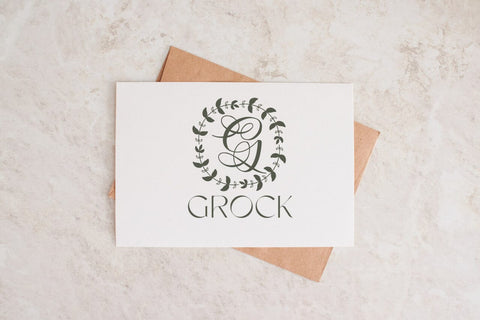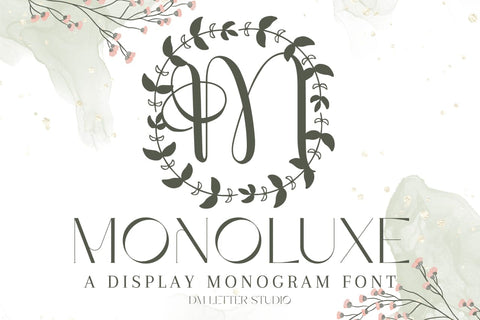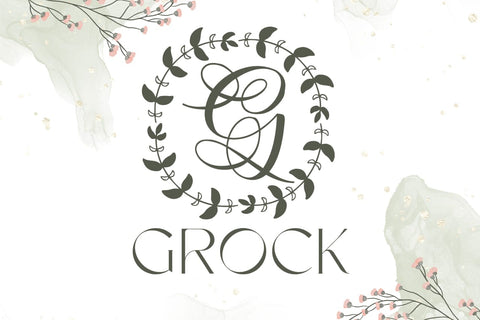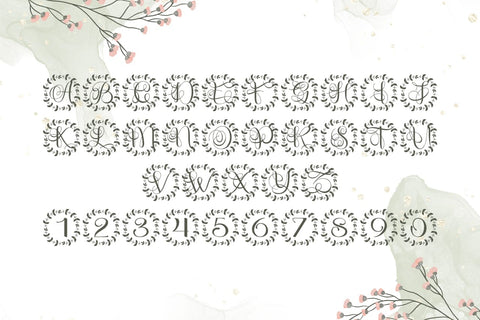
Monoluxe Monogram Font
Meet Monoluxe, the Monogram Font
Monoluxe Monogram Font turns simple initials into sleek, boutique-ready emblems. Lines are smooth and balanced, and generous counters keep tiny tags readable. Use it for wedding suites, boutique logos, keepsake gifts, foil seals, and premium packaging. Because spacing is even and forms are calm, your layouts look refined at thumbnail size and stay crisp on large prints.
Where this monogram font shines
Set single, double, or triple initials for logos, seals, menus, and place cards. Frame them with laurel rings, ovals, rope circles, or fine rules to echo the clean geometry. Since proportions favor symmetry and clarity, centered compositions come together in minutes. As a result, your listings feel consistent across invitations, signage, boxes, and tags. Monoluxe also scales smoothly from jewelry cards to entry displays, which makes it ideal for event décor and retail packaging.
Design tips for Monoluxe Monogram
Keep initials large and let white space breathe. Pair the hero mark with a soft serif for body text or a clean sans for dates and labels. Add micro shadows, a thin inner stroke, or a delicate frame to create depth. Because the structure is airy and modern, textured papers and metallic foils raise perceived value. Keep wording short so the monogram remains the hero on favors, tags, and wax seals.
Select stylistic alternates for key letters
Curves tuned for foil, letterpress, engraving, laser cutting, and clean vinyl paths
Why creators choose this monogram font
You want elegance that reads at a glance and sells across many product types. Monoluxe Monogram Font delivers steady clarity, quick layout, and a cohesive brand voice from invites to packaging and gifts.